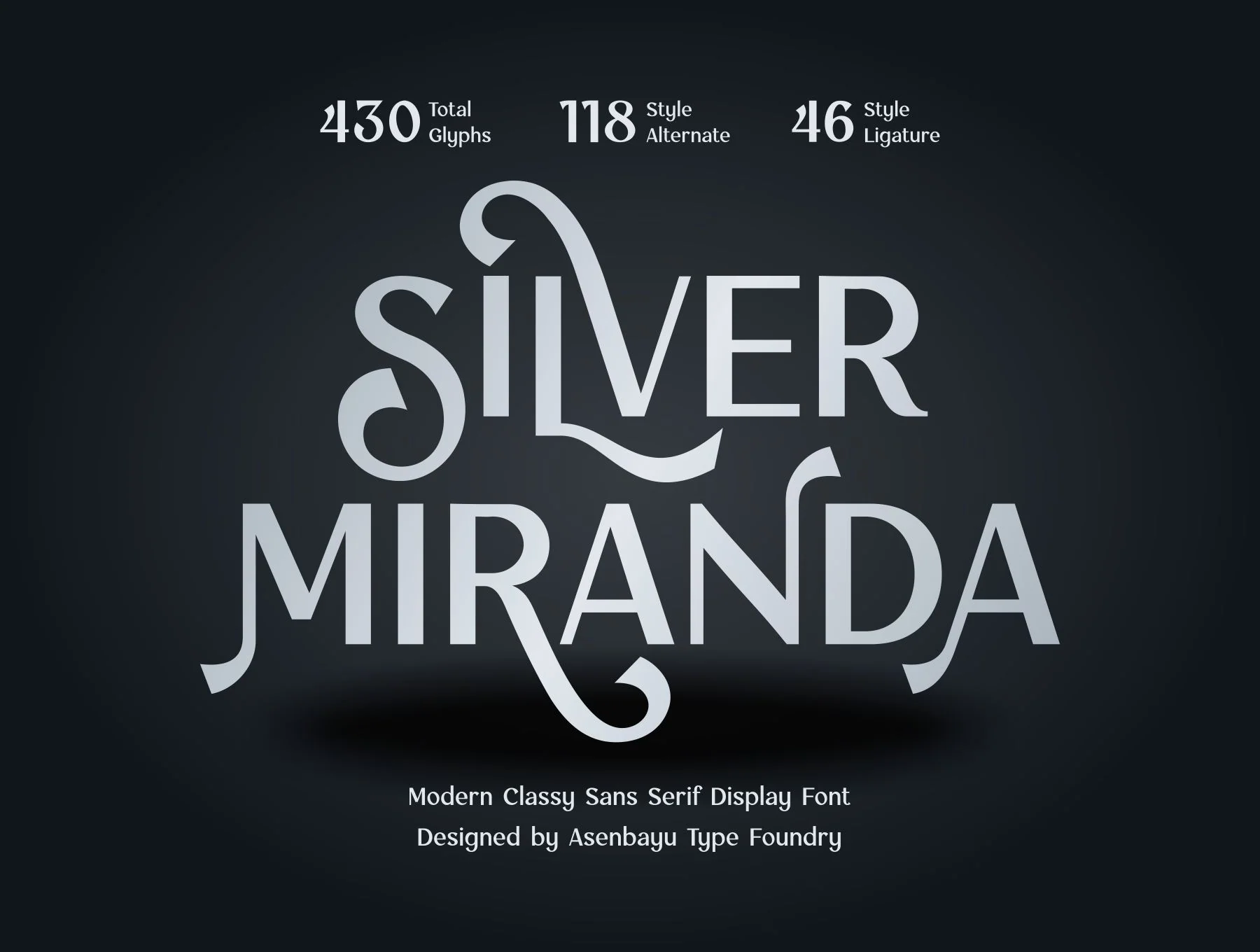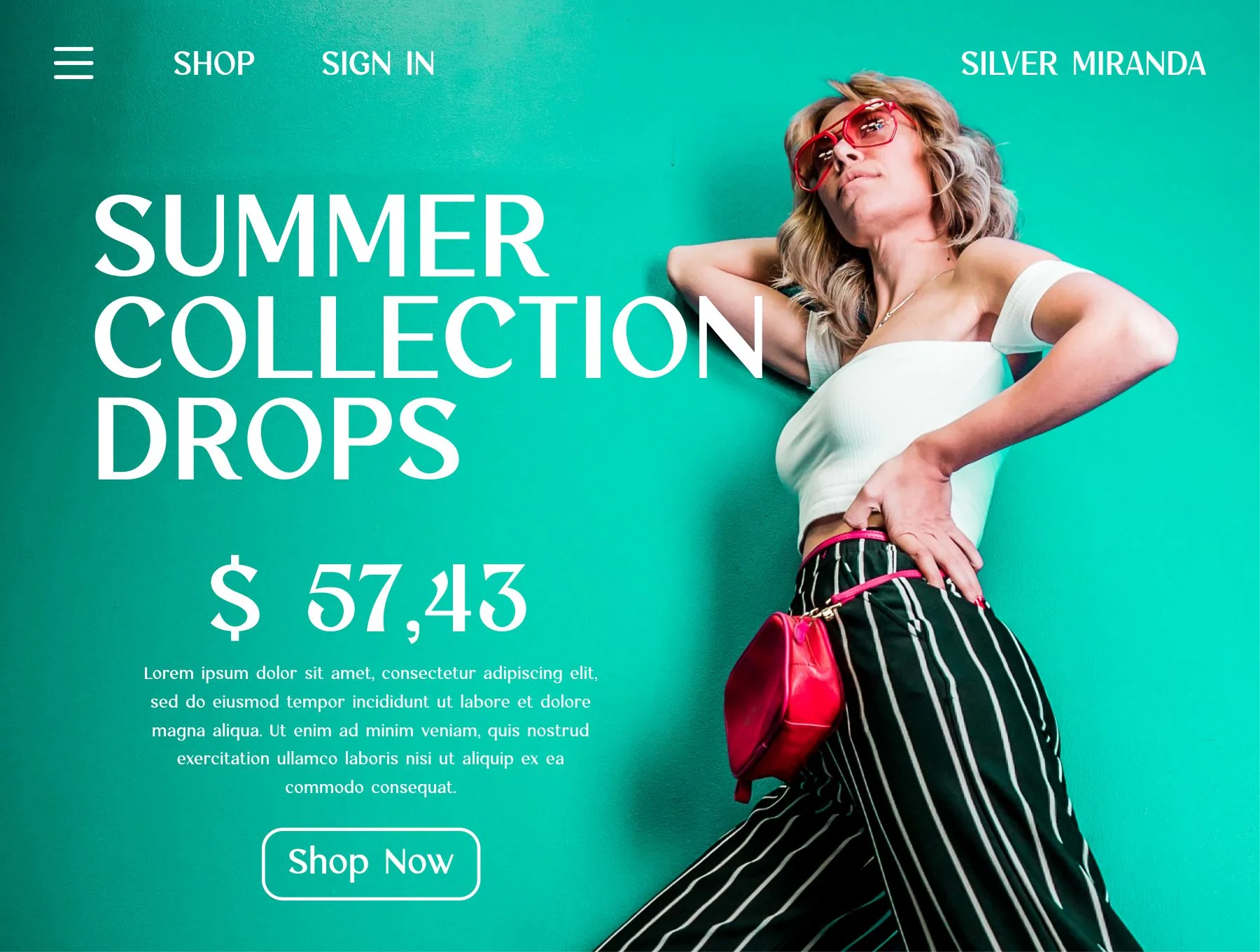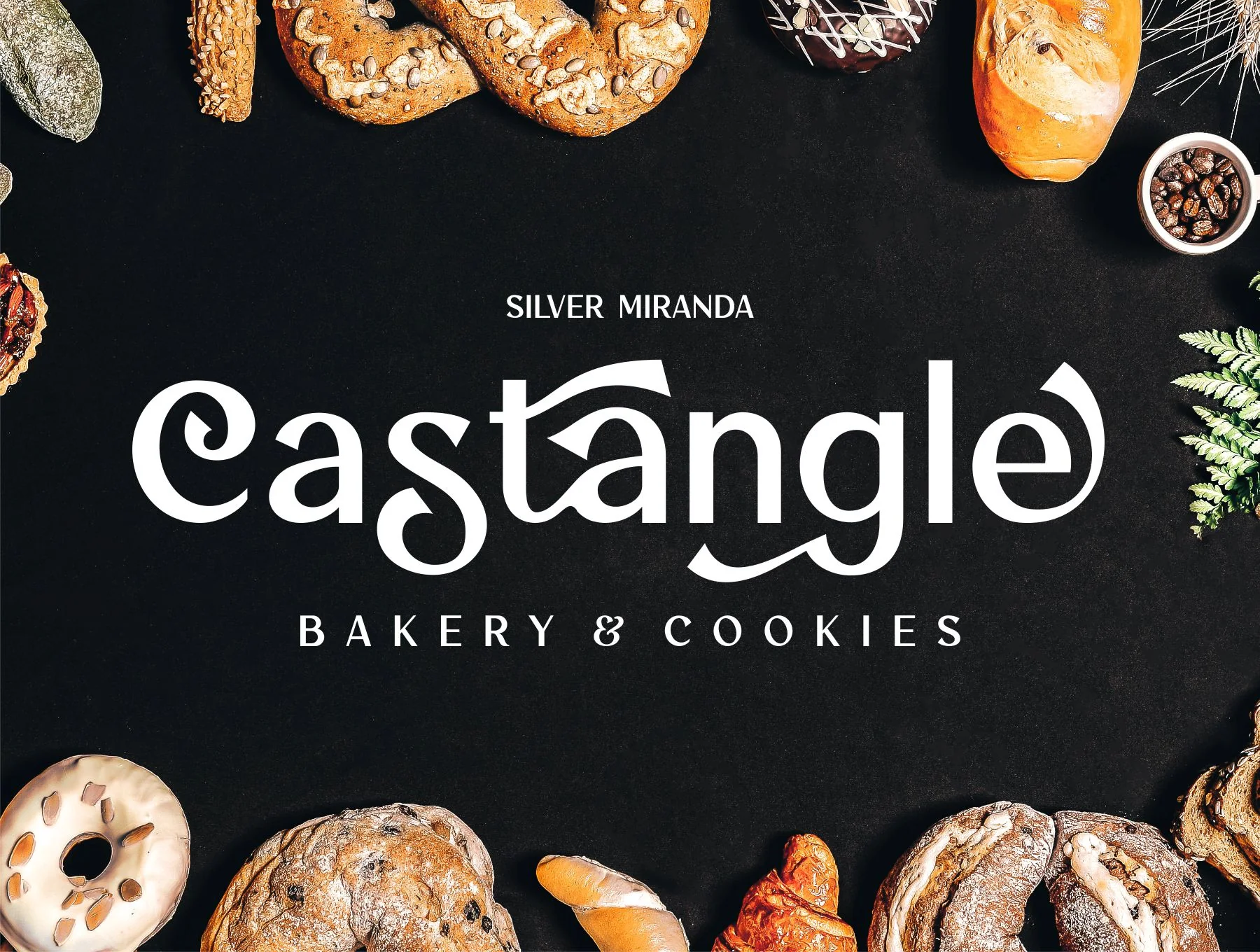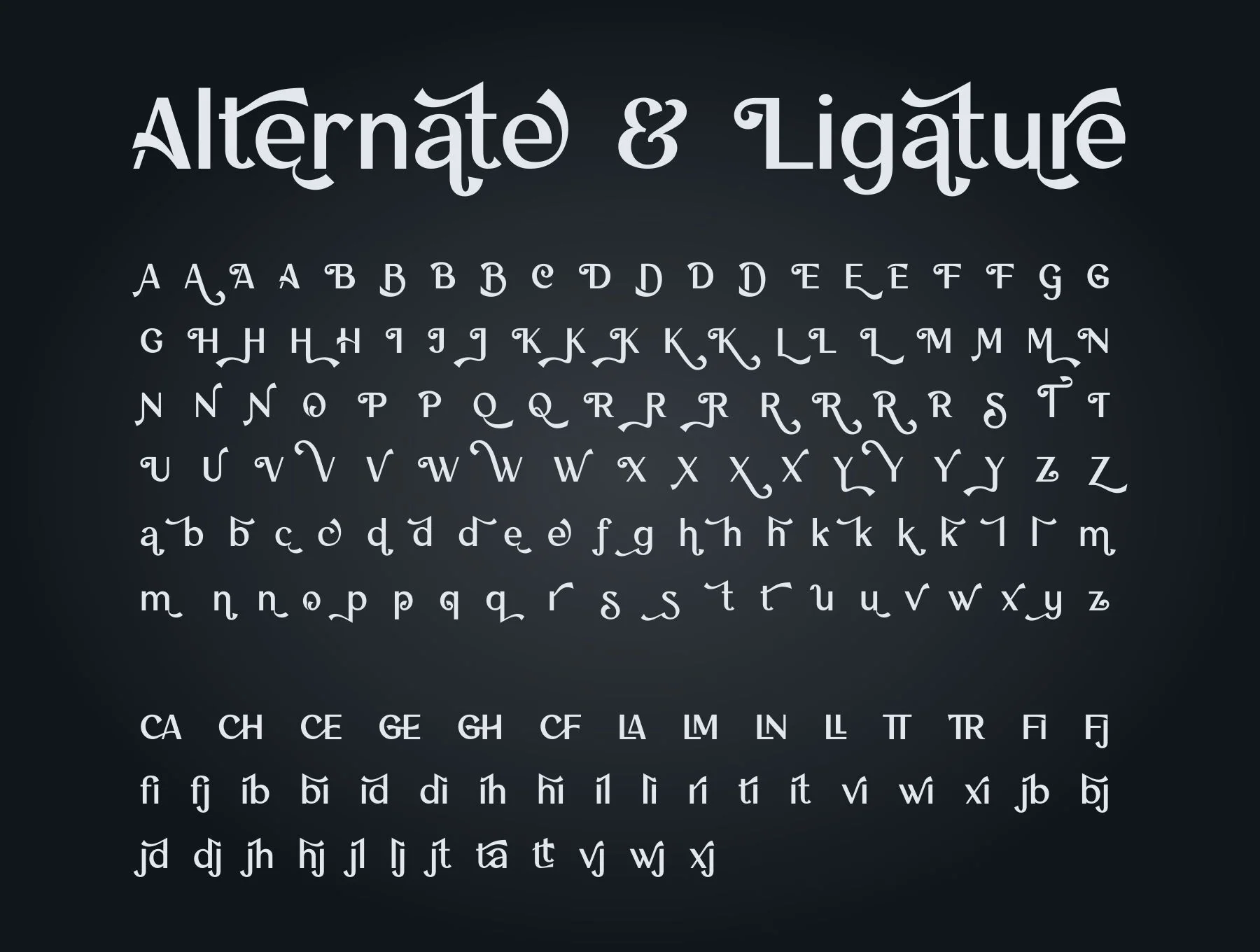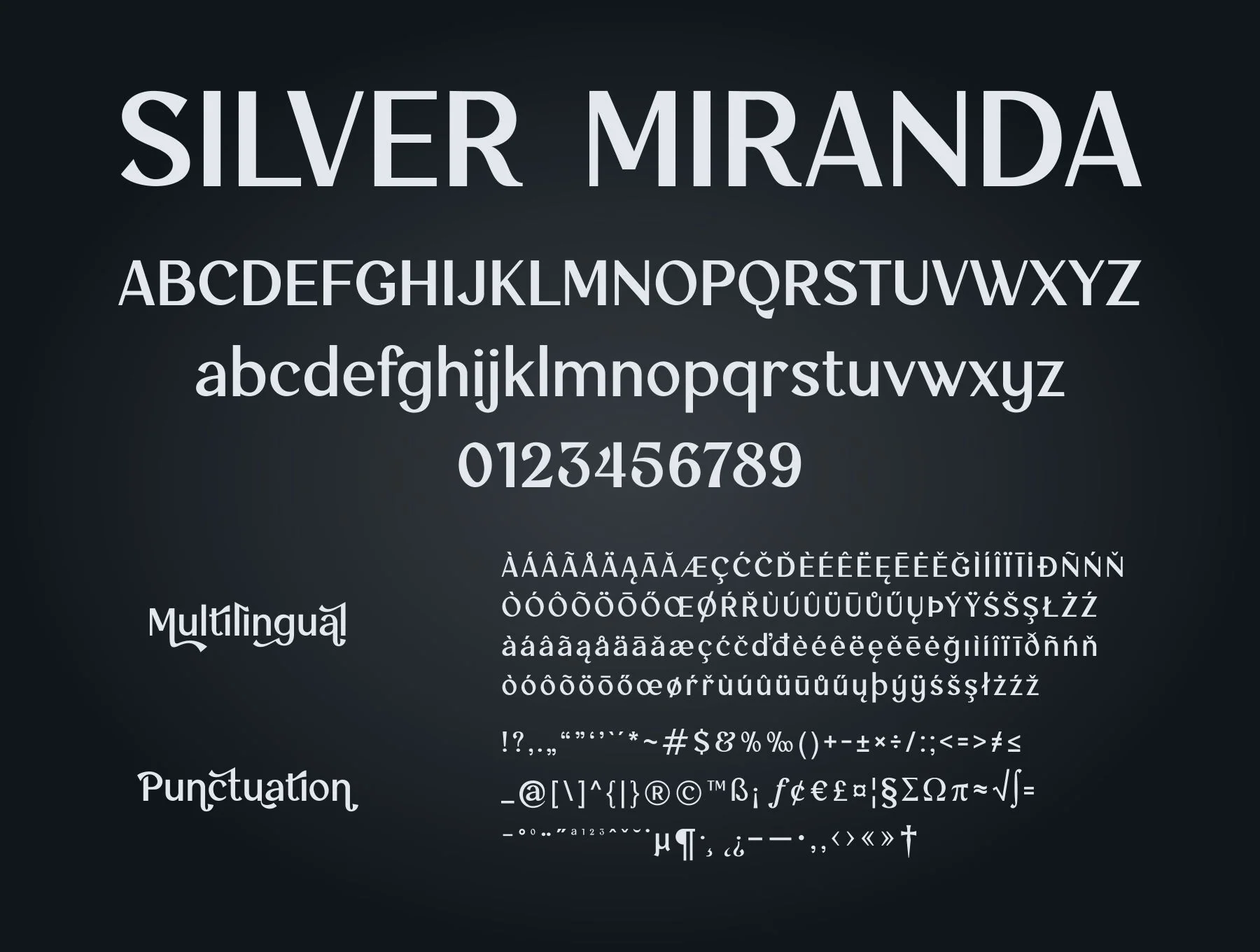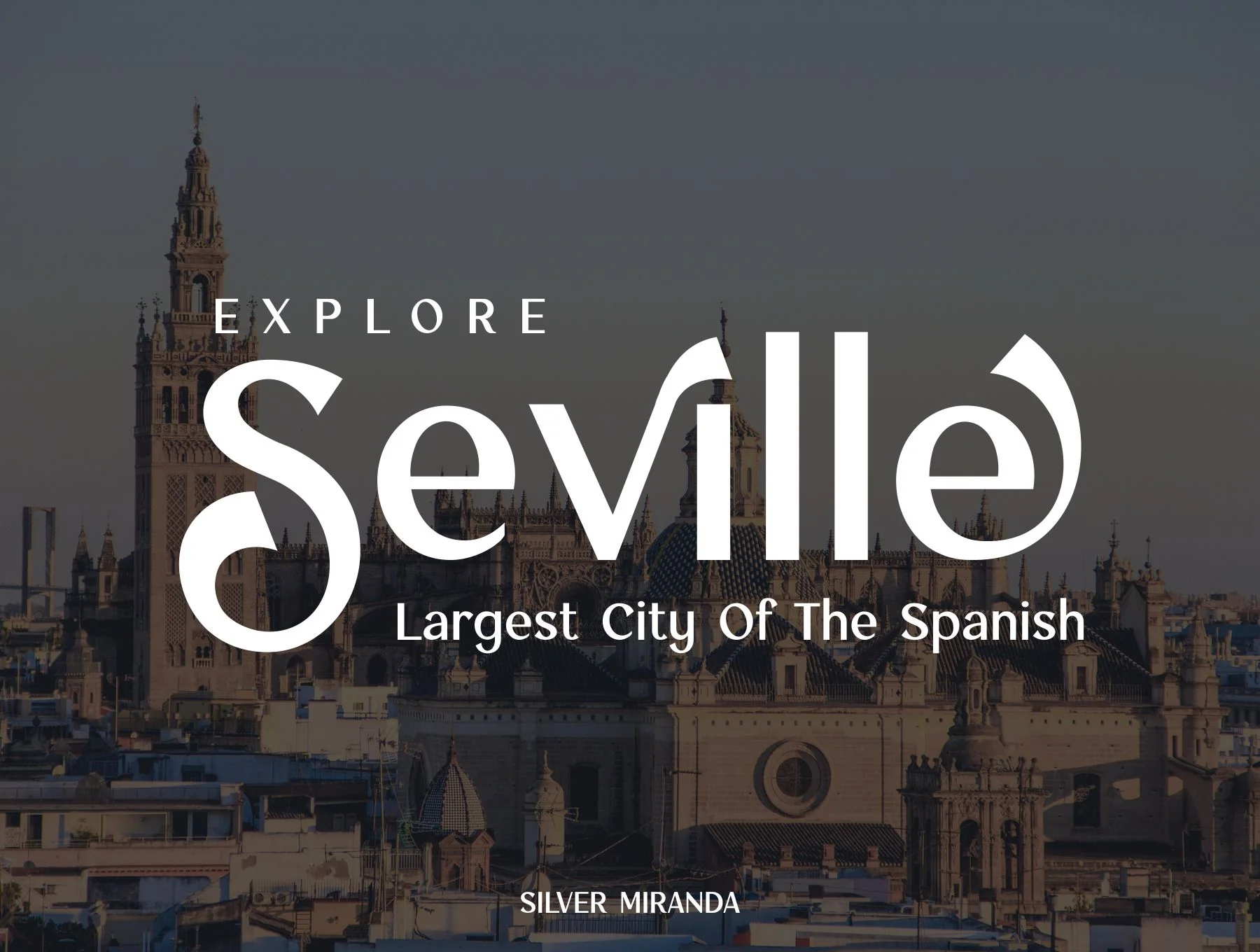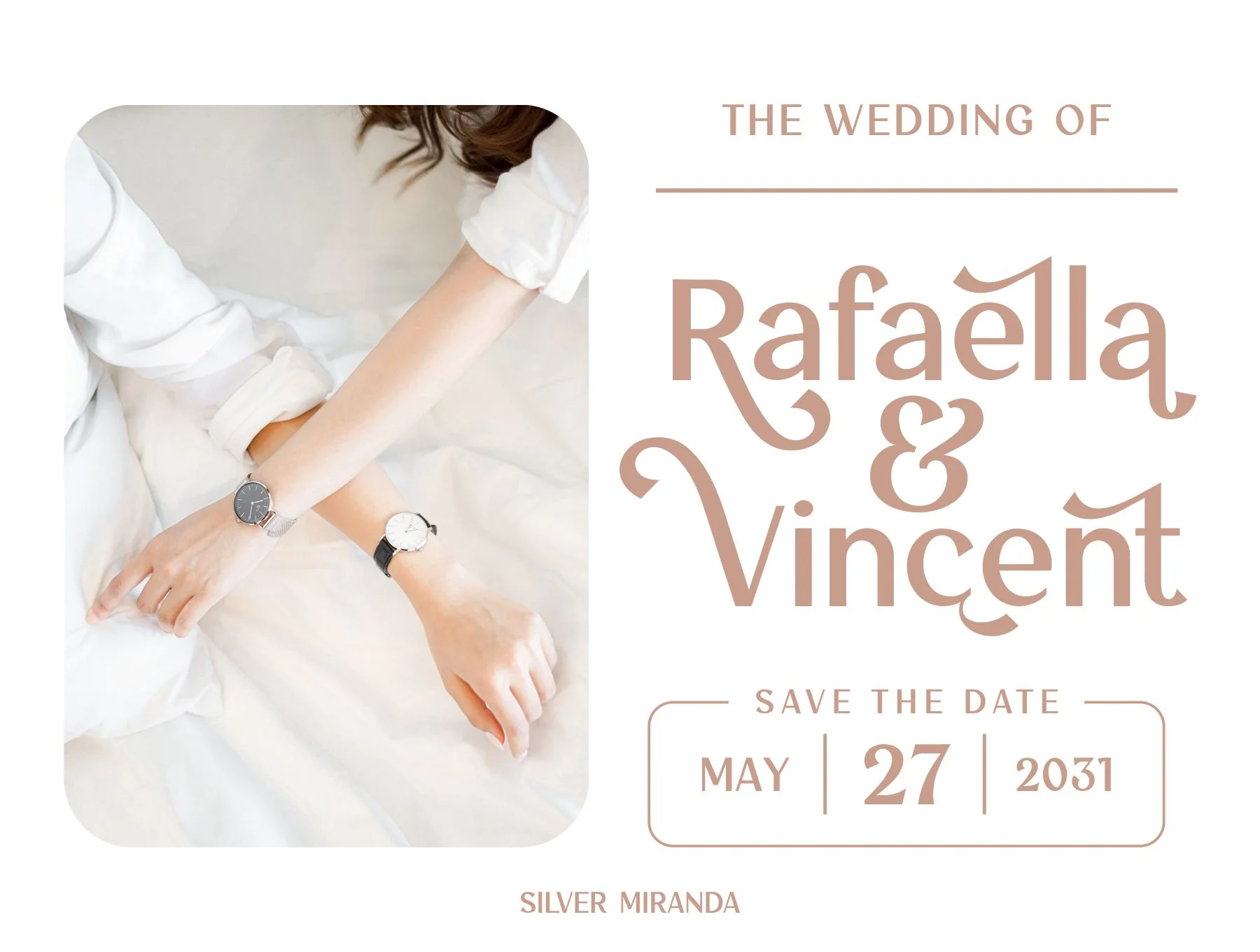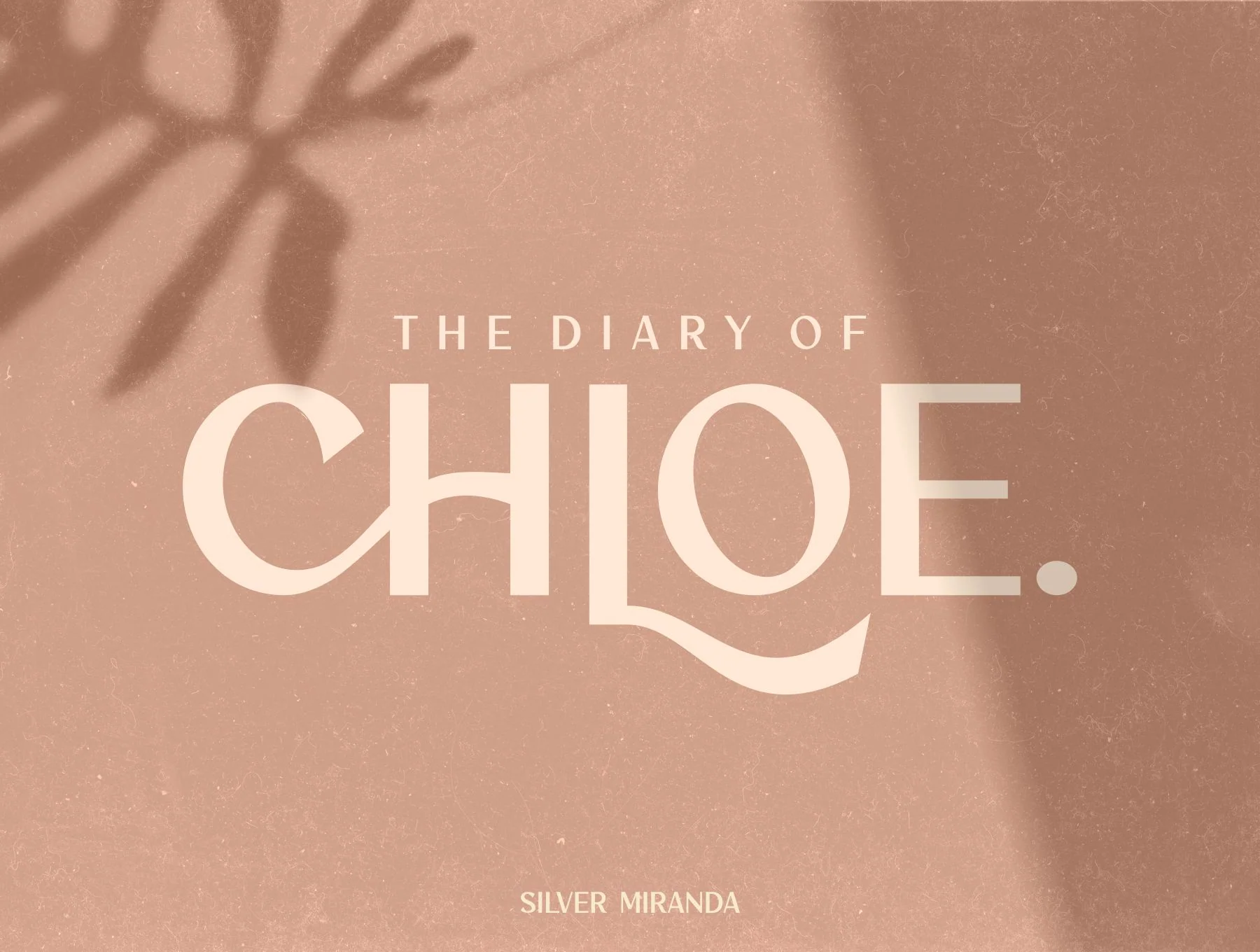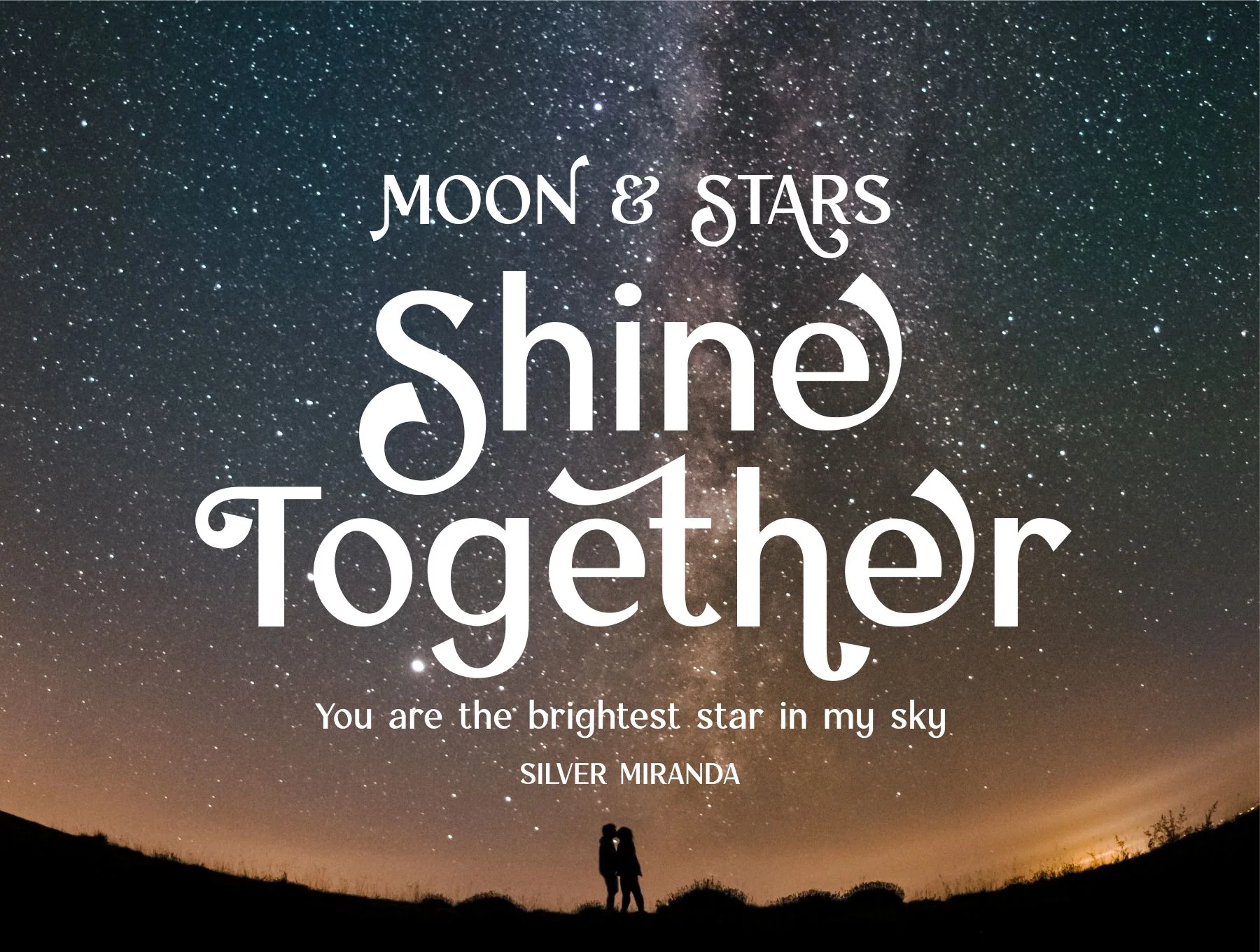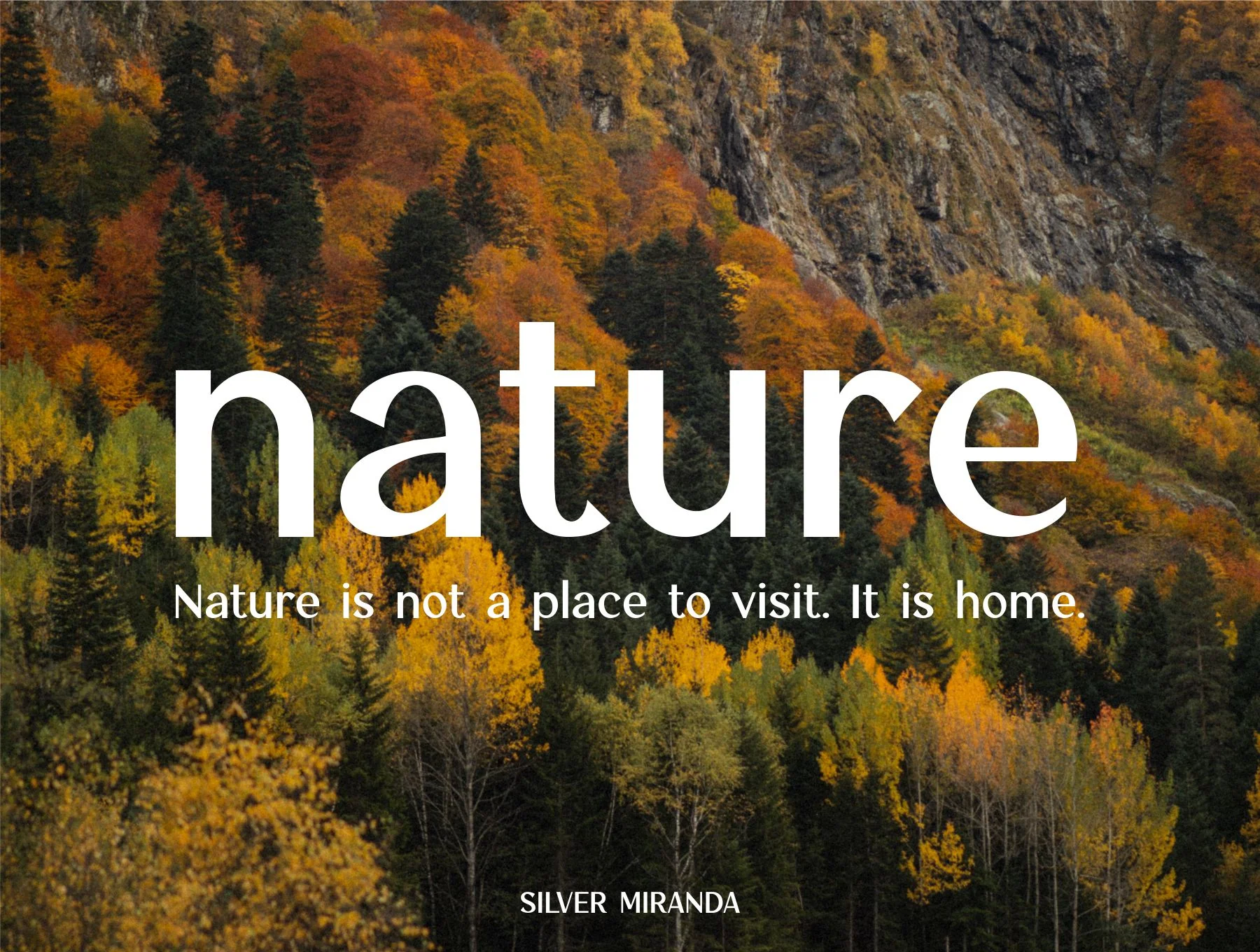
Silver Miranda Font
Sleek Elegant Sans Serif Display Font
Default glyph style
Normal weight
Alternate styles and ligature forms
Numbers and punctuation marks
Silver Miranda is an elegant sans serif display font with a refined vintage-modern style. Its OpenType features, kerning, alternates, and ligatures help create clean, professional text or decorative designs. It includes uppercase, lowercase, numbers, punctuation, and multilingual support, ideal for logos, posters, headlines, albums, quotes, apparel, and more.